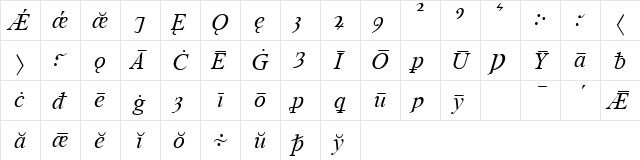
Times Old English Italic
Design Context for Times Old English Typeface
Times Old English is a composed and adaptable typeface that performs quietly and consistently across a wide range of design contexts. The slanted form adds forward momentum and visual energy.
Pro Tip: Use Times Old English for emphasis, pull quotes, and subheadings where its slanted energy can add rhythm to the layout.